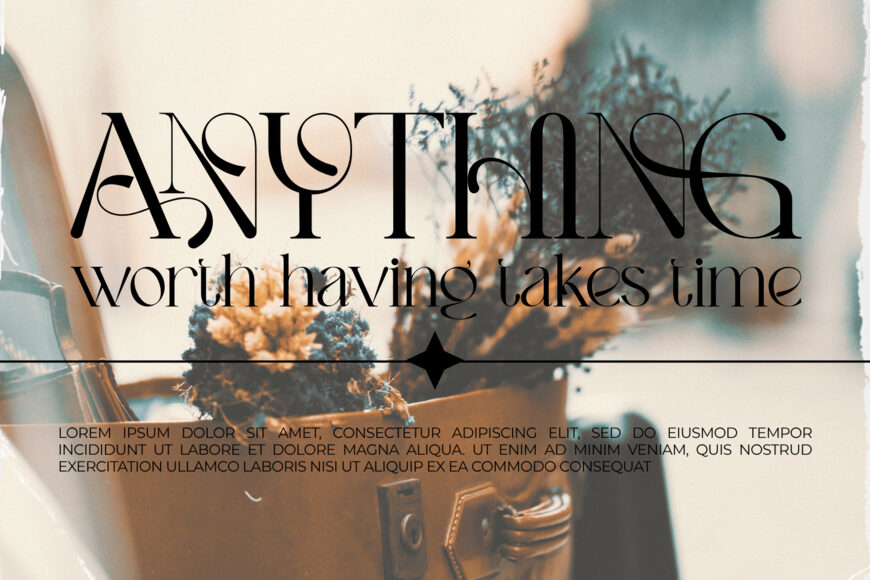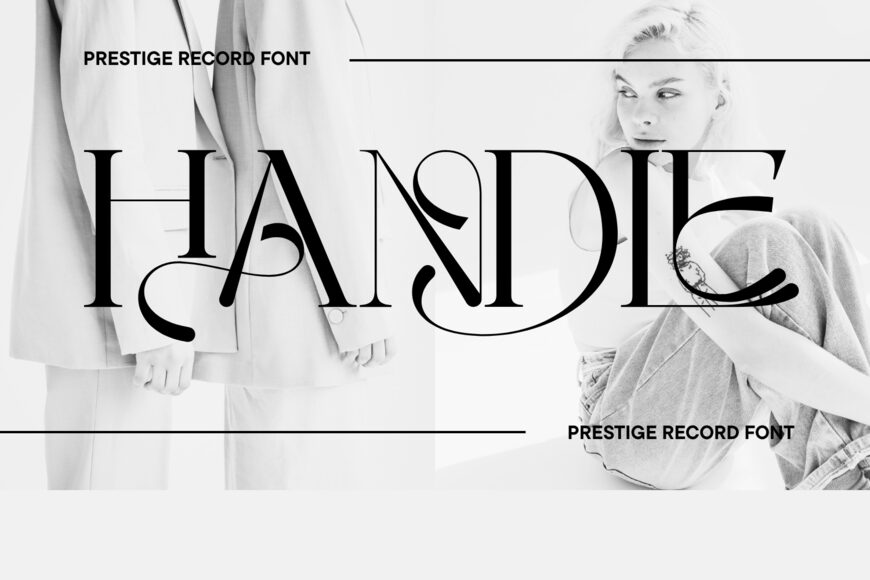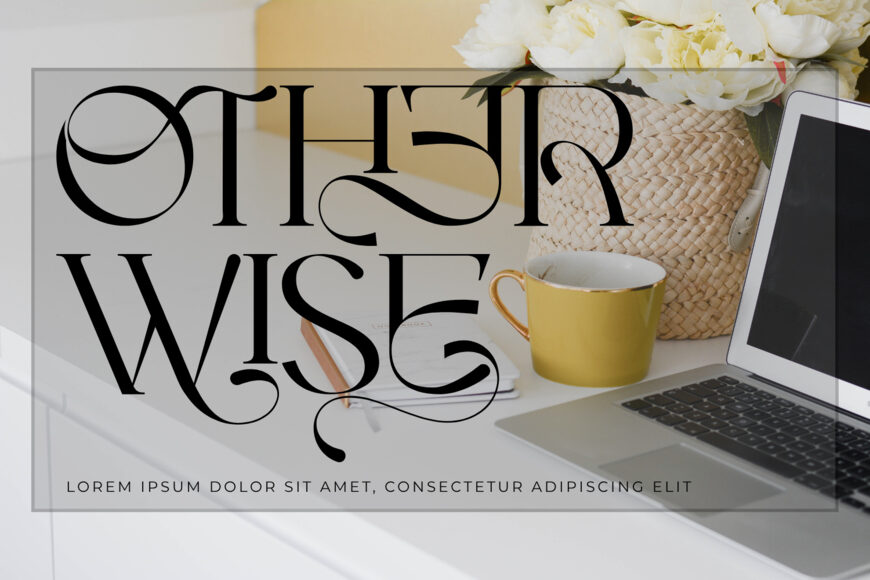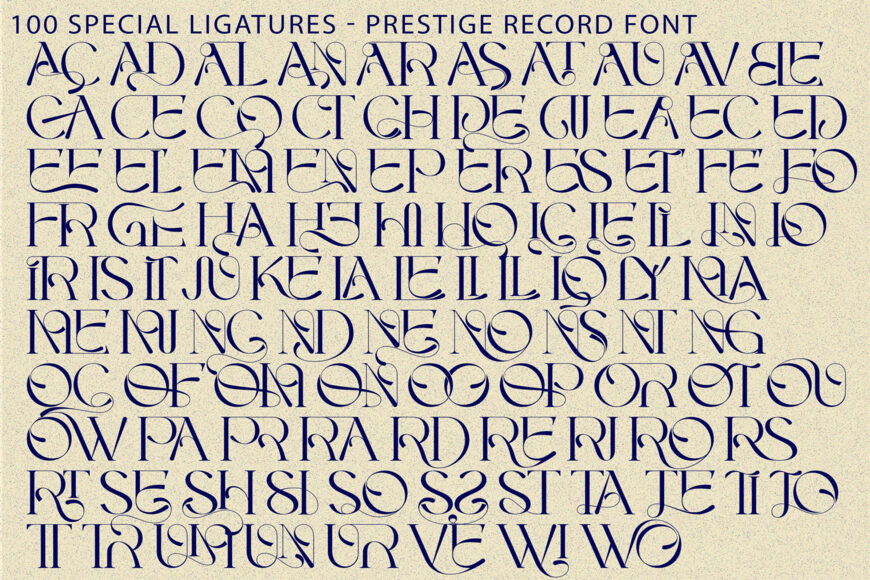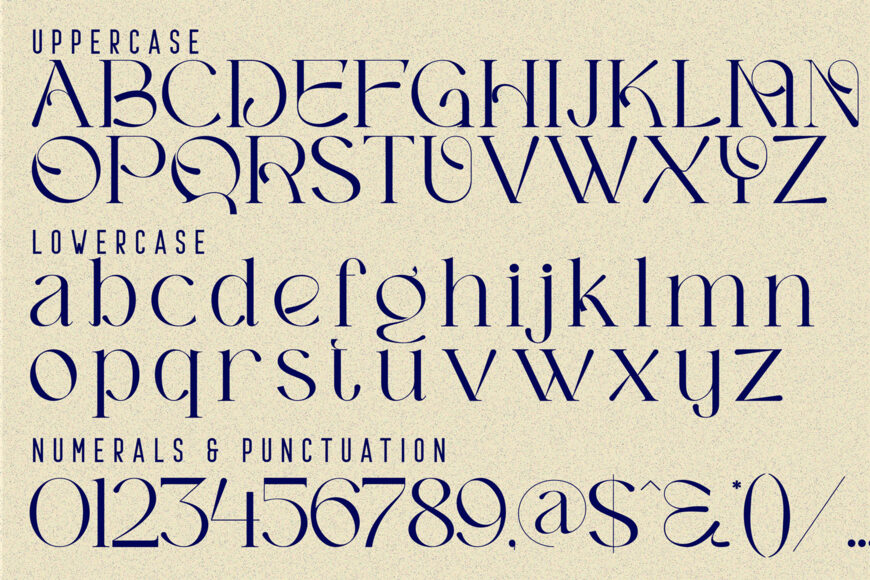
Prestige Record is an exquisitely crafted display serif font designed to bring high-fashion sophistication, Art Nouveau elegance, and editorial glamour to your creative artwork. Defined by its striking high-contrast letterforms, sweeping swashes, and intricate looping flourishes, this typeface effortlessly turns standard headlines into bespoke typographic art.
Each character in Prestige Record features graceful curves and stylized inner counters that weave rhythmically together. Engineered for commanding titles and luxury visual identities, it is the ultimate choice for boutique branding, high-end editorial layouts, perfume and wine packaging, luxury cosmetics, wedding stationery, and fashion logos.